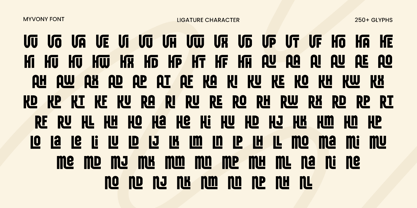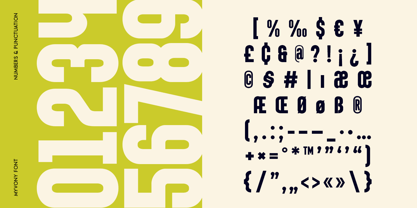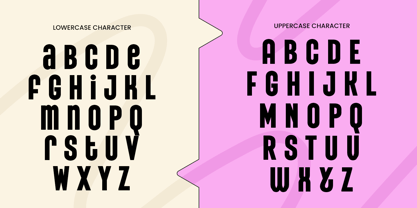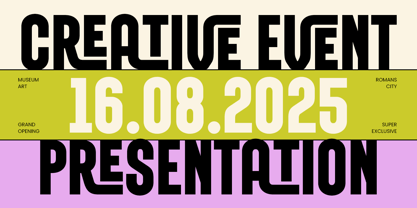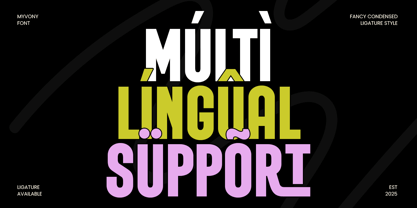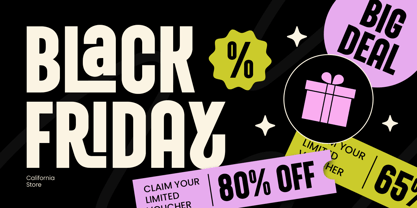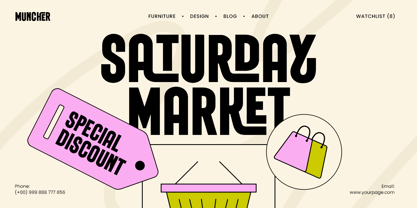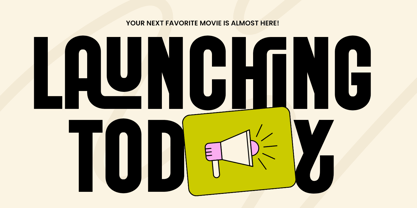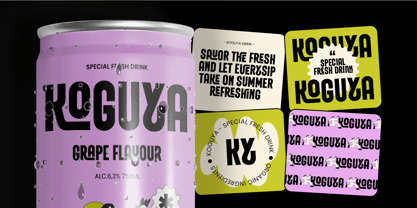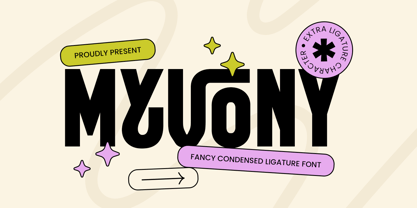
Myvony is a modern tall condensed font with unique ligatures designed to stand out in bold branding and artistic layouts. Its sleek form and narrow width create a strong visual identity, making it perfect for logos, creative headings, and brand design.
Crafted with artistic flair, Myvony merges modern with creative. The distinctive ligatures and refined proportions make it ideal for high-impact use in modern logo design, branding, packaging, posters, and editorial titles. From startup identities to art brand visuals, Myvony brings both structure and style to your typography, offering versatility across digital and print formats.
Myvony – Fancy Condensed Ligature Font Features
Fancy tall condensed letterforms
Unique ligature & alternate characters
Punctuation, numbers, and symbols included
Uppercase and lowercase letters in same high
OpenType features for advanced typography
Myvony